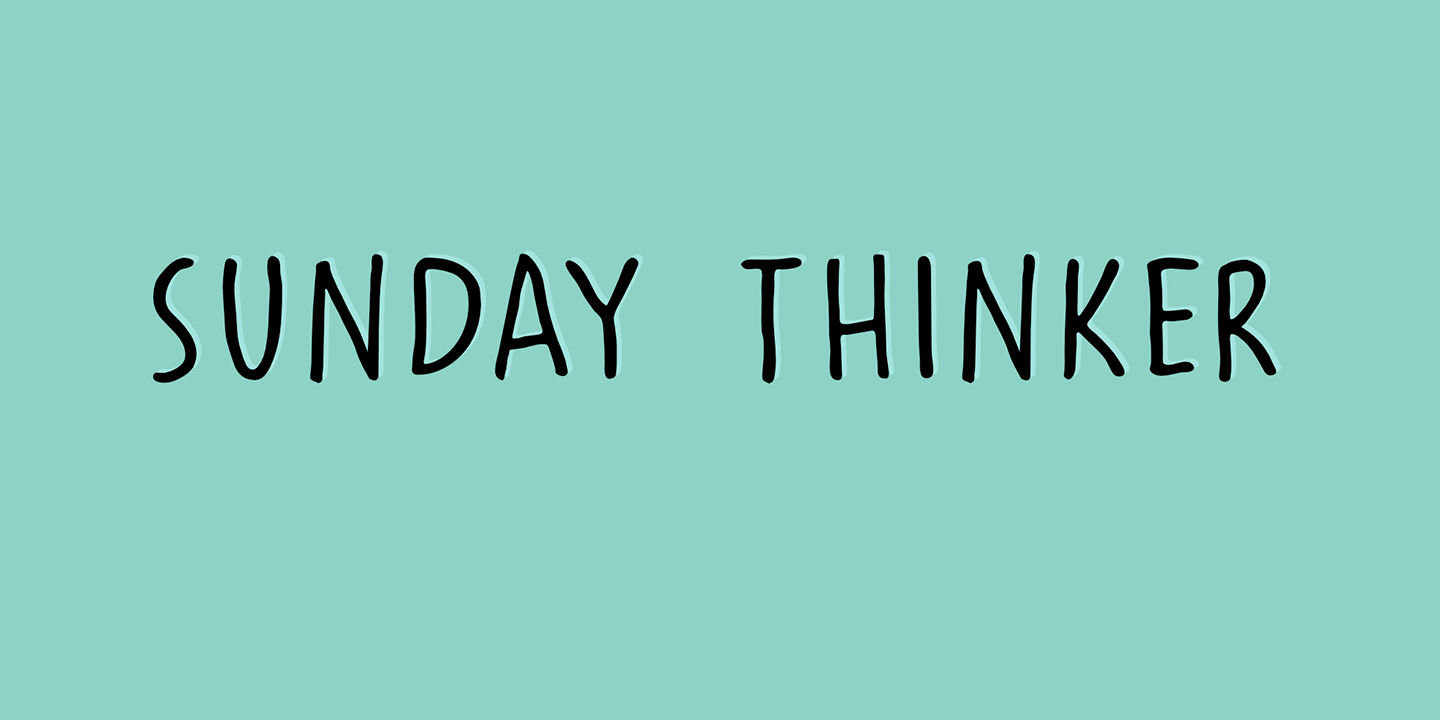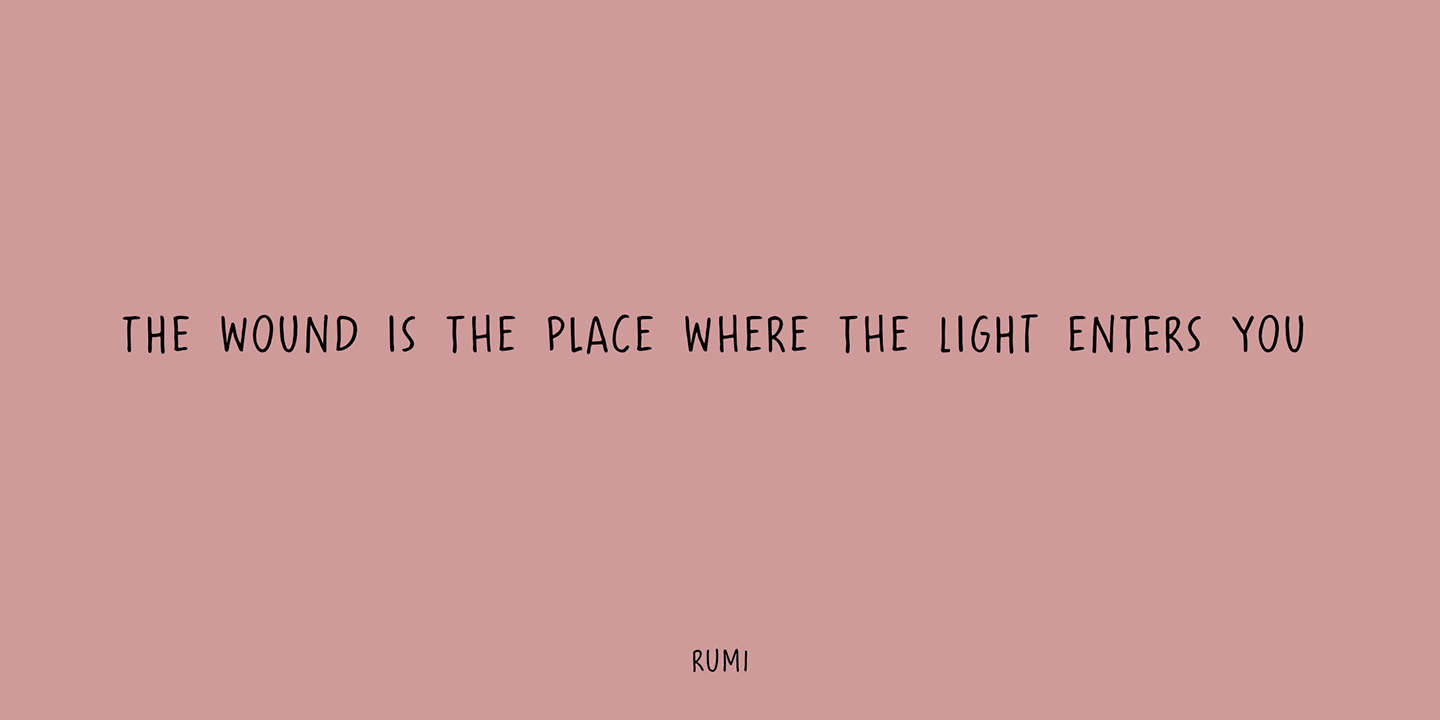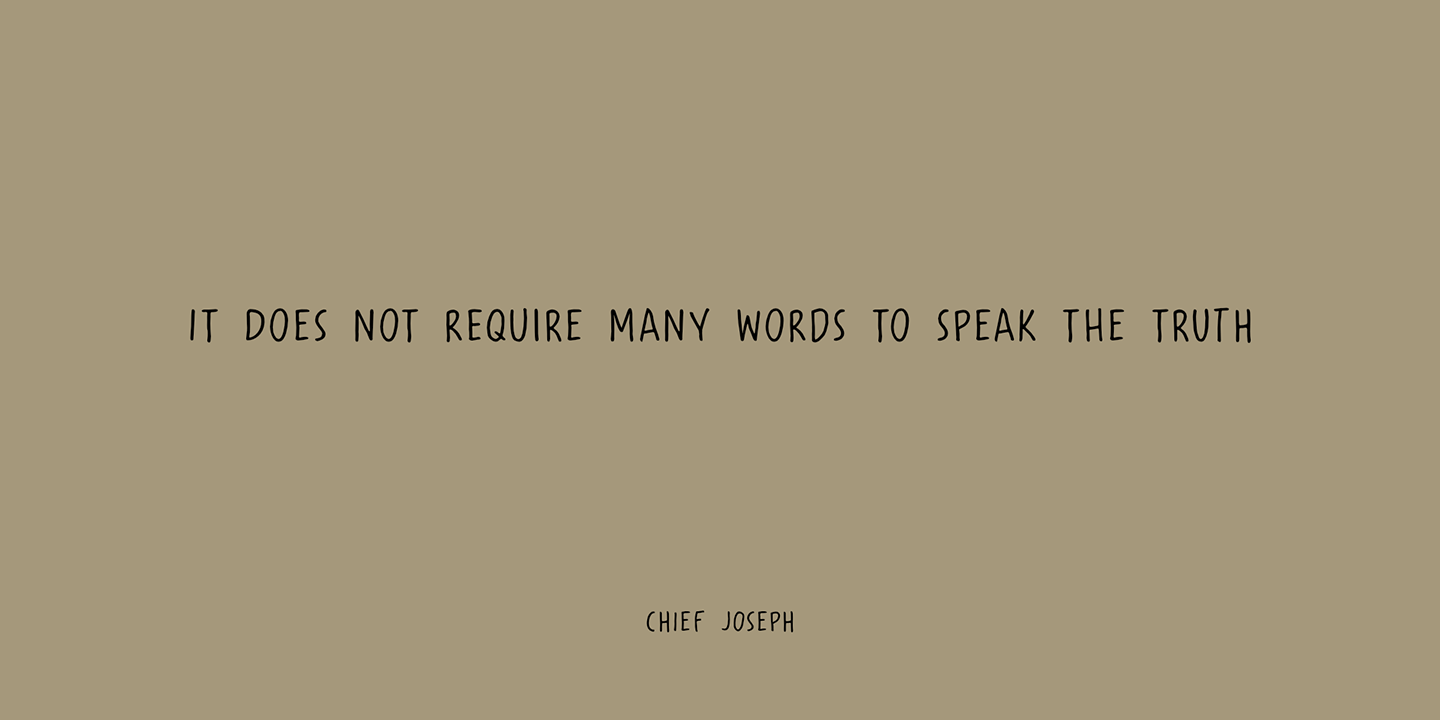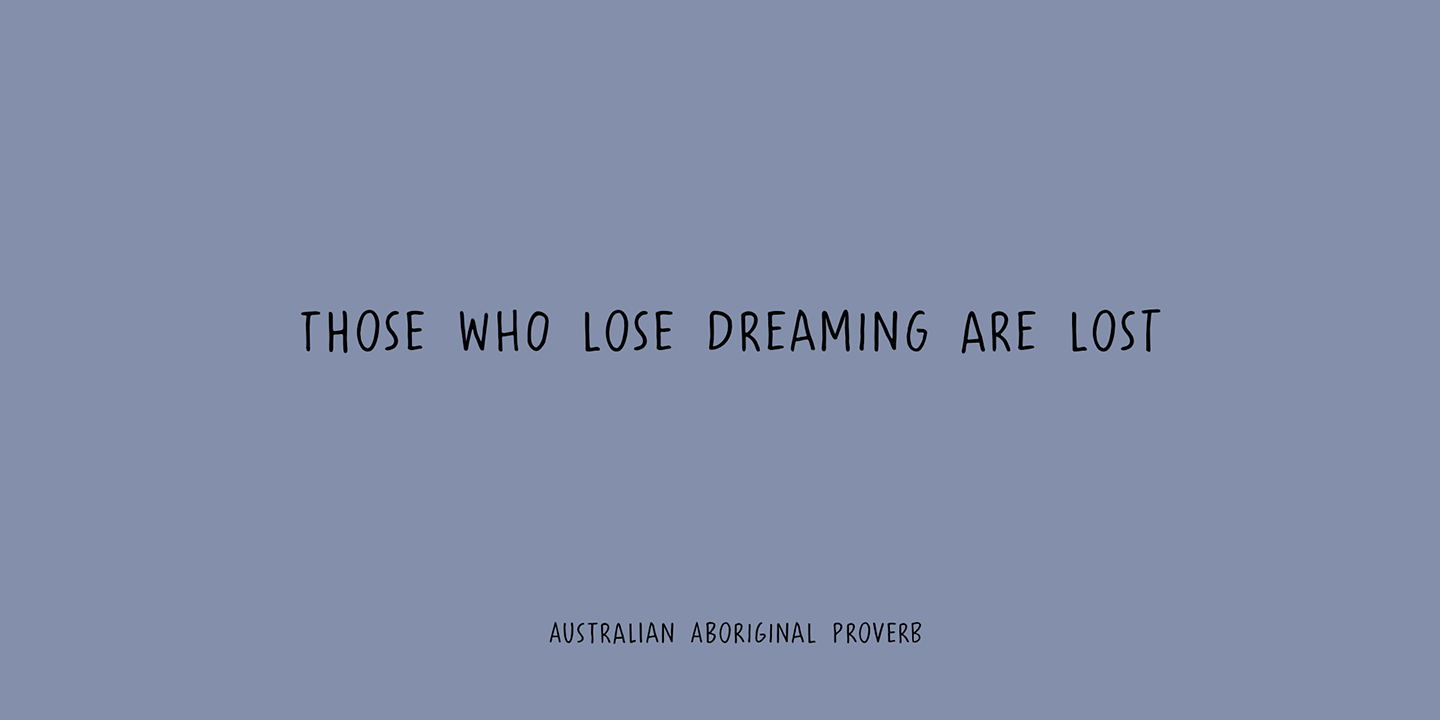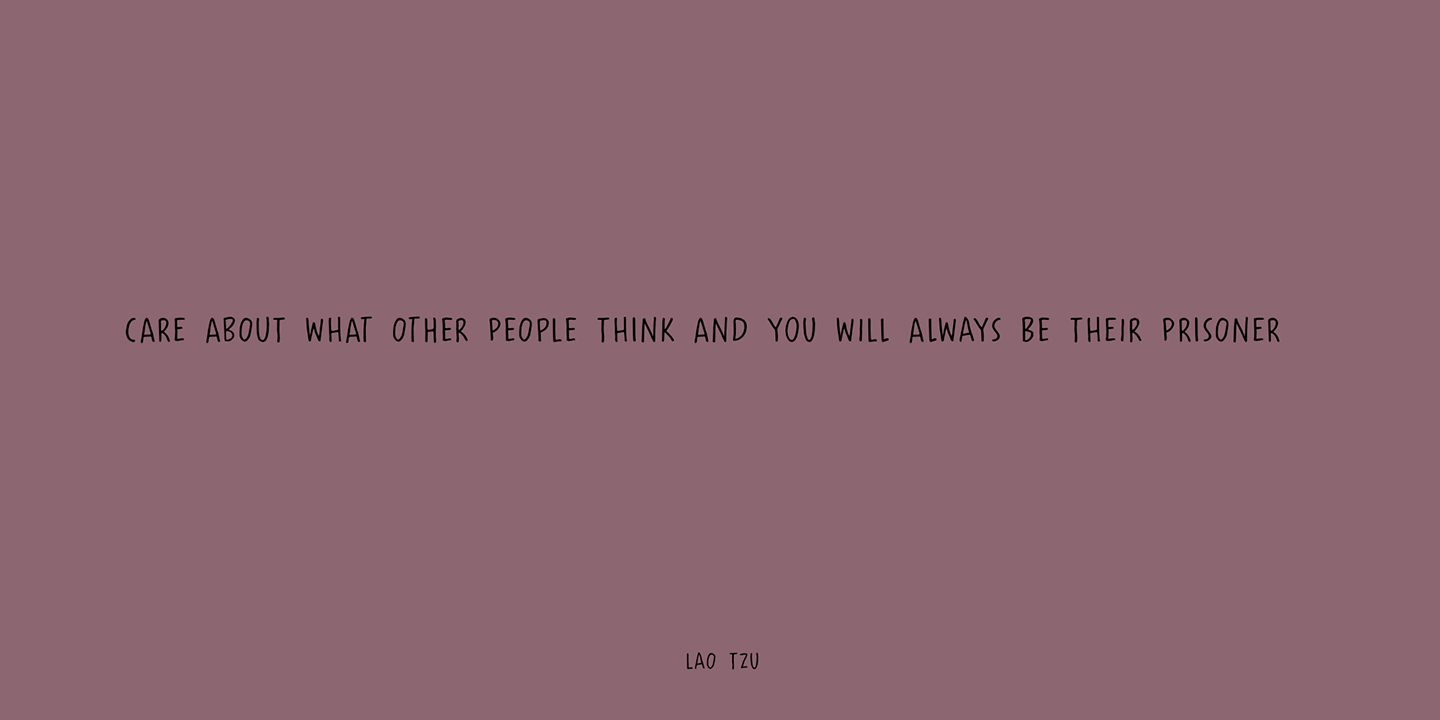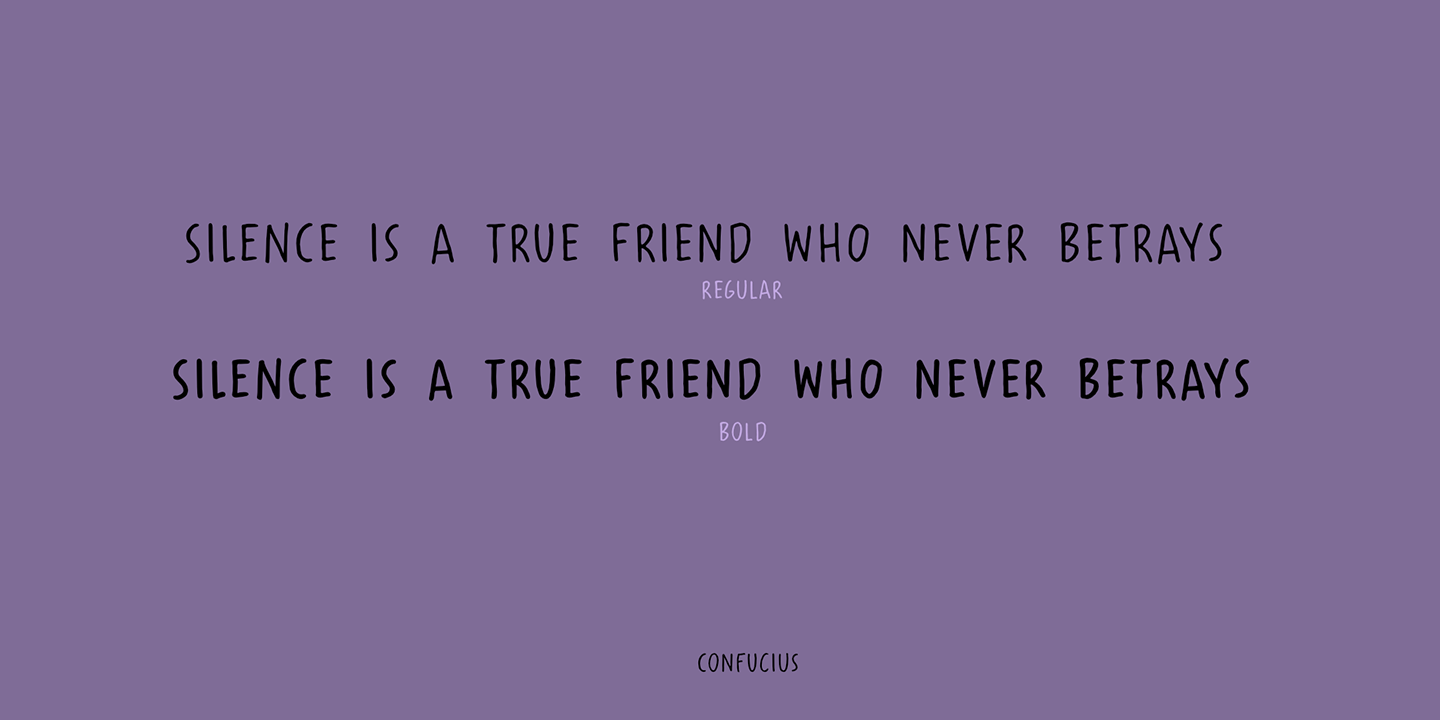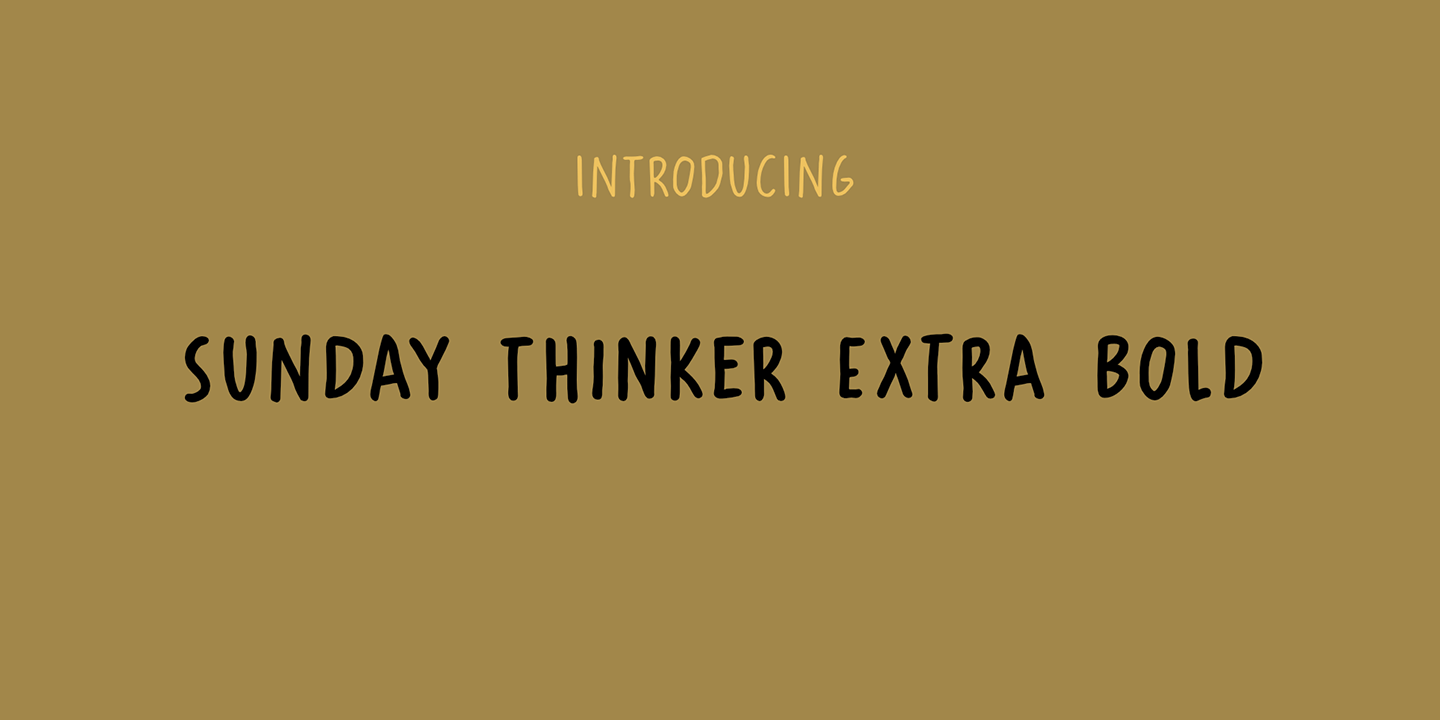
Sunday Thinker
No, no fantastic story about how I came up with the name for this font. It was a Sunday when I thought up Sunday Thinker. It seemed like the right name and it wasn't taken yet, so there you have it!
Sunday Thinker is a thoughtful font, made with creativity in mind. Personally I think it?d look great on product packaging or book covers, but the font will adapt itself to whatever you think of! Just think happy thoughts!